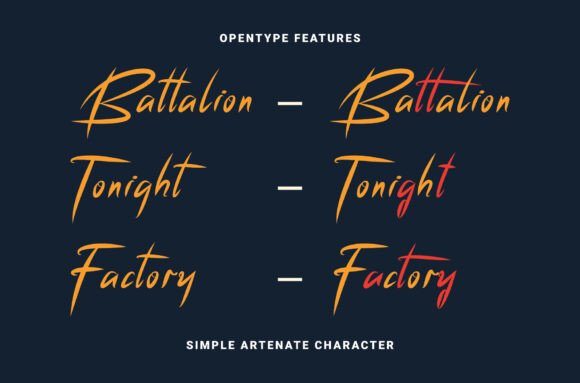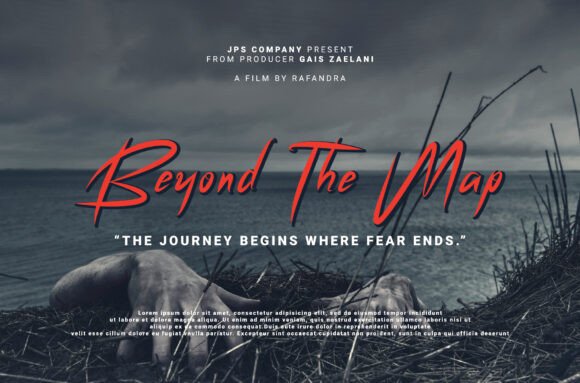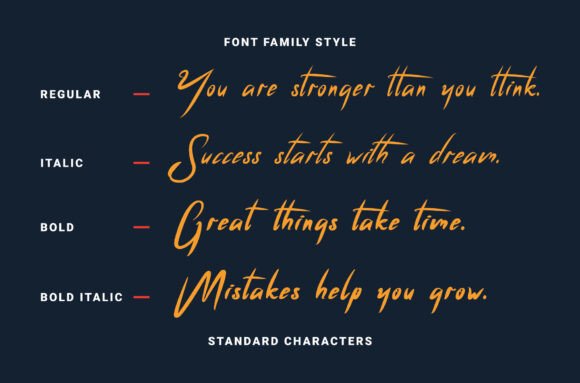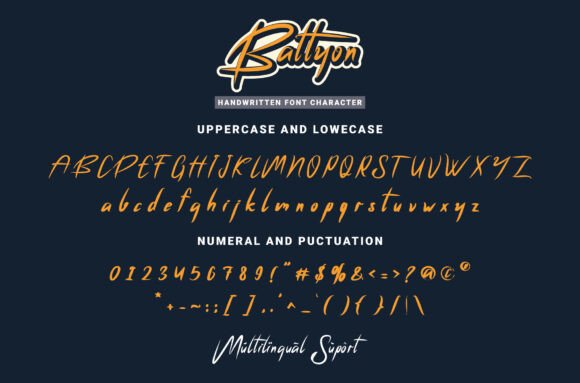
Unleash Your Creativity with Battyon Font: The Epitome of Elegance and Sophistication
In the realm of typography, few fonts have managed to capture the essence of individuality and sophistication as effortlessly as Battyon. This uniquely handwritten font has been making waves in the design community, and for good reason. With its inherent elegance and grace, Battyon is revolutionizing the way designers approach logo development, social media content, movie and book titles, and more.
The Birth of a Masterpiece: What Makes Battyon Font So Special?
Battyon font is more than just a collection of letters; it’s an experience. Its distinctive handwritten style exudes a sense of refinement and poise, setting it apart from more traditional typefaces. Whether you’re a seasoned designer or a crafty DIY enthusiast, Battyon offers a world of creative possibilities. From branding and advertising to movie titles and book covers, this extraordinary font is sure to elevate your designs to new heights.
Raising the Bar on Logo Development
When it comes to logo development, the font you choose can make all the difference. A well-designed logo can be a game-changer for any business, and Battyon font is the perfect tool for the job. Its unique blend of sophistication and playfulness makes it an ideal choice for businesses looking to establish a strong brand identity. With Battyon, you can create a logo that not only stands out from the crowd but also tells a story – a story of elegance, refinement, and creativity.
Elevating Social Media Content with Battyon
In today’s digital age, social media content is king. With Battyon font, you can take your social media game to the next level. Whether you’re creating graphics for Instagram, Facebook, or Twitter, Battyon adds a touch of sophistication and glamour that’s sure to turn heads. From eye-catching headlines to engaging captions, Battyon font helps you create social media content that’s not only visually stunning but also engaging and memorable.
Reinventing Movie and Book Titles with Battyon
The world of publishing and filmmaking is no stranger to creative typography. With Battyon font, you can create movie and book titles that are not only attention-grabbing but also works of art. Imagine a movie poster with a Battyon-font title that seems to leap off the screen, or a book cover with a headline that whispers elegance and sophistication. Battyon font offers a fresh perspective on title design, one that’s sure to captivate audiences and leave a lasting impression.
Unleashing Your Artistic Flair with Battyon
At its core, Battyon font is more than just a typeface – it’s a tool for creative expression. Whether you’re a professional designer or a crafty hobbyist, Battyon offers a world of possibilities for artistic exploration. With its unique blend of elegance and playfulness, Battyon inspires you to push the boundaries of design and create something truly remarkable. So why settle for ordinary when you can create something extraordinary with Battyon font?
Tips and Tricks for Working with Battyon Font
To get the most out of Battyon font, here are a few tips and tricks to keep in mind:
- Play with font sizes and styles to create visual hierarchy and emphasis.
- Combine Battyon with other fonts to create unique and engaging typography.
- Don’t be afraid to get creative and try new things – Battyon font is all about experimentation and self-expression.
Conclusion: Experience the Allure of Battyon Font
In conclusion, Battyon font is a game-changer for designers and crafters looking to elevate their creative projects. With its unique blend of elegance, sophistication, and playfulness, Battyon offers a fresh perspective on typography and design. Whether you’re working on a logo, social media content, movie titles, or book covers, Battyon font is the perfect tool for the job. So why wait? Experience the allure of individuality with Battyon font and discover a world of creative possibilities.
| Font Name | Battyon Font |
| Author | JprintStudio |